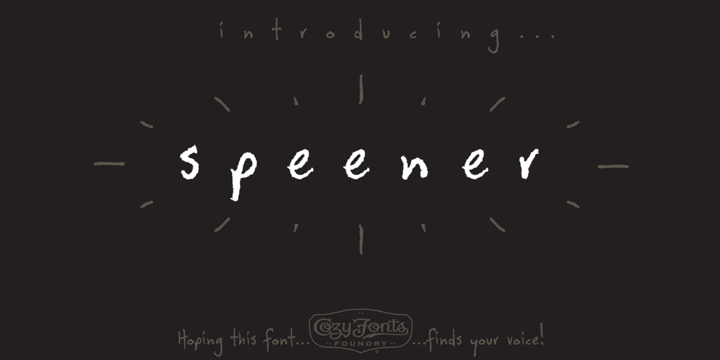
Speener is a handwritten font designed by Tom Nikosey, an American Graphic Designer specializing in Typographic Design and Illustration. Speener is based on his son Spencer’s printing style. “I love the way Spence prints. There’s a loose control in a vertical stroke that has his personality built into it. I wanted to create a font to see how it would look & feel and it looks and feels right to me”. Speener is a nickname.
Speener is a casual, handwritten font and the seventh font for CozyFonts Foundry.